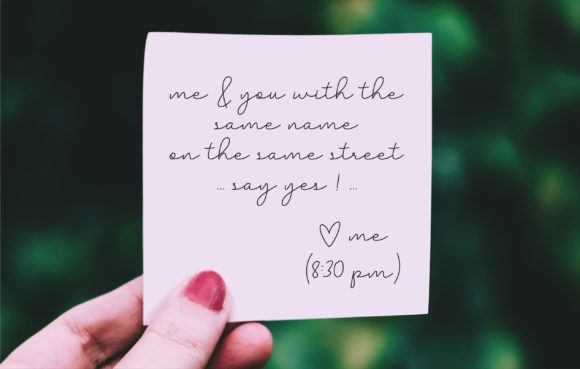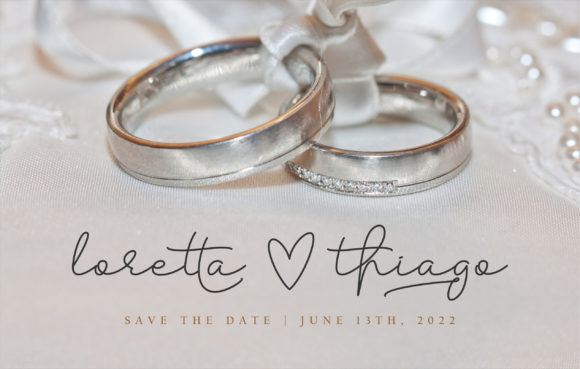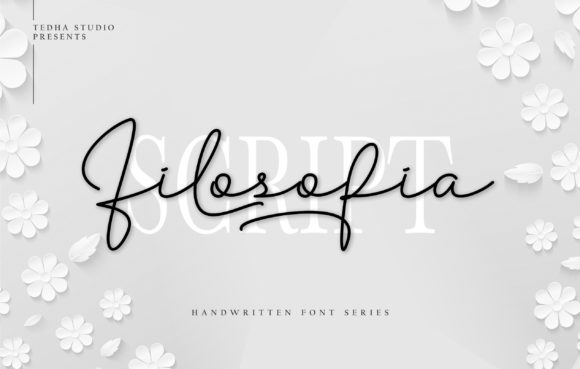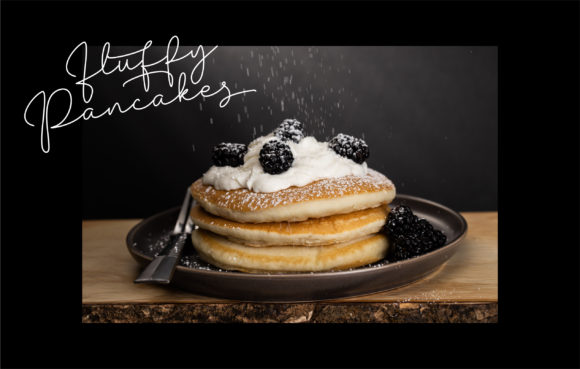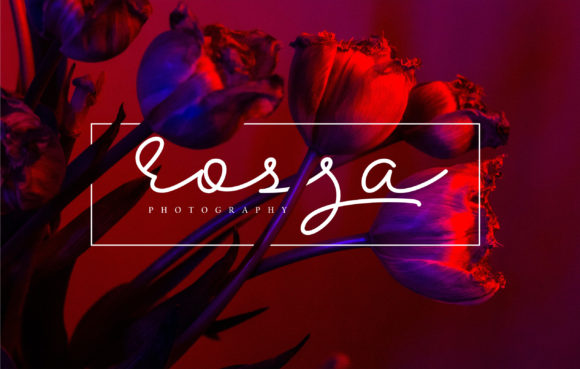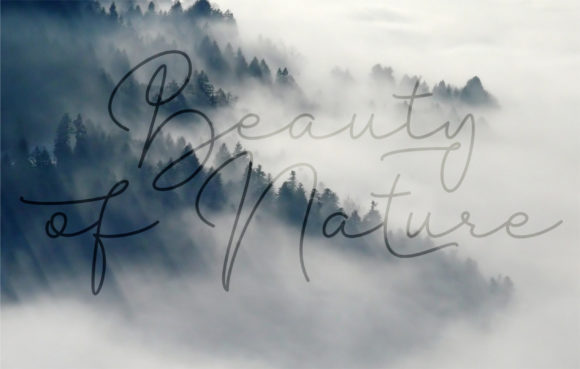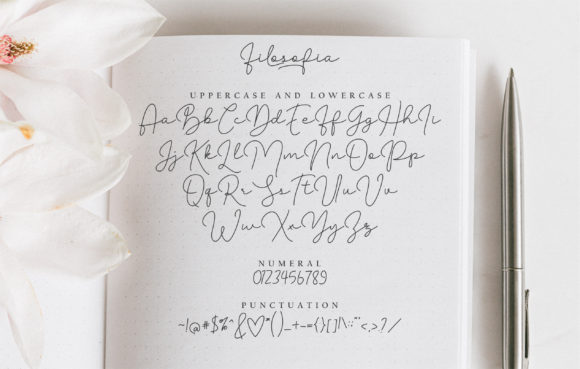
Filosofia Script Font
About Filosofia Script Font
Filosofia Script is an elegant, modern and unique handwritten font. It looks stunning on wedding invitations, thank you cards, quotes, greeting cards, logos, business cards, and any other design that requires a stylish vibe. This font is PUA encoded which means you can access all of the amazing glyphs and ligatures with ease!